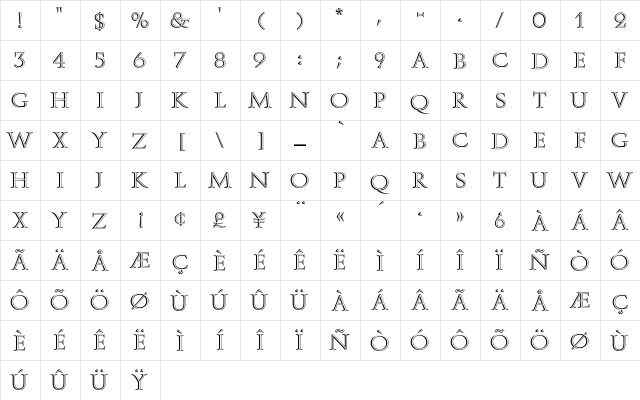
Augustea Open Regular
Design Context for Augustea Open Typeface
Augustea Open offers clean, dependable letterforms without strong stylistic allegiance, making it a practical choice for designers who need flexibility.
Pro Tip: Use Augustea Open in both headline and body roles to test its range before committing to a single application.